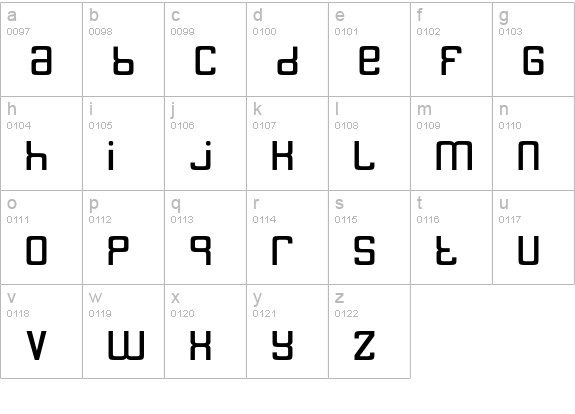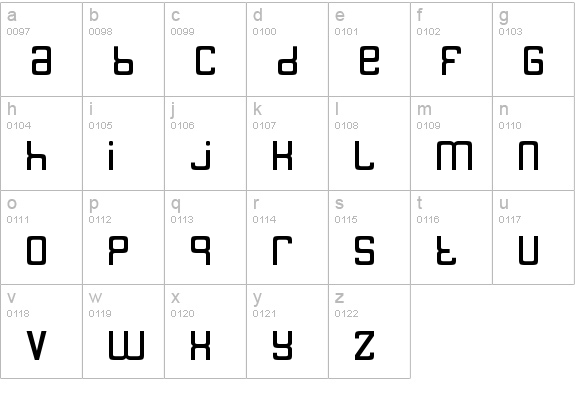
Butterbelly Font Details
Introducing Butterbelly font, a unique and whimsical typeface that exudes charm and elegance. With its playful curves and graceful strokes, Butterbelly is perfect for adding a touch of creativity to your designs. This versatile font is ideal for a wide range of projects, from branding and packaging to invitations and social media graphics. What sets Butterbelly apart is its free-spirited vibe and effortless style. Whether you're working on a fun and quirky project or aiming for a more sophisticated look, Butterbelly has got you covered. This font is sure to make your text stand out and capture the attention of your audience. The best part? Butterbelly is available for free download at FontsMarket.com. So go ahead and add this delightful font to your collection today and let your creativity soar with Butterbelly font!